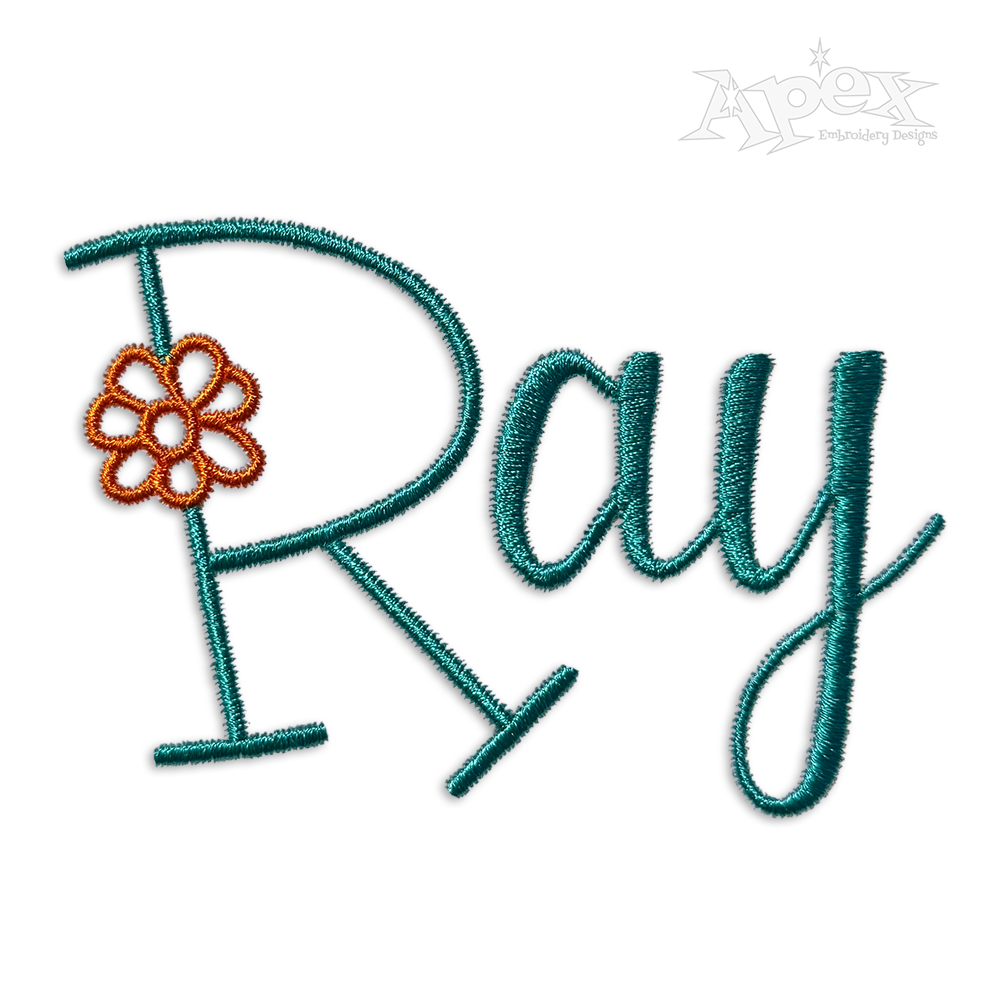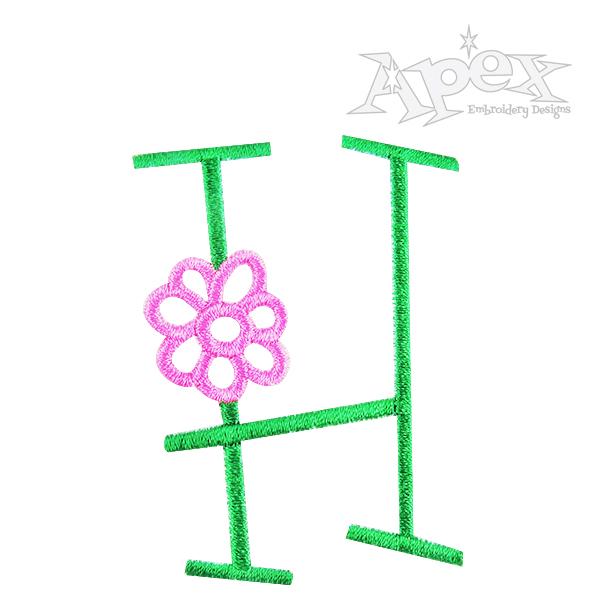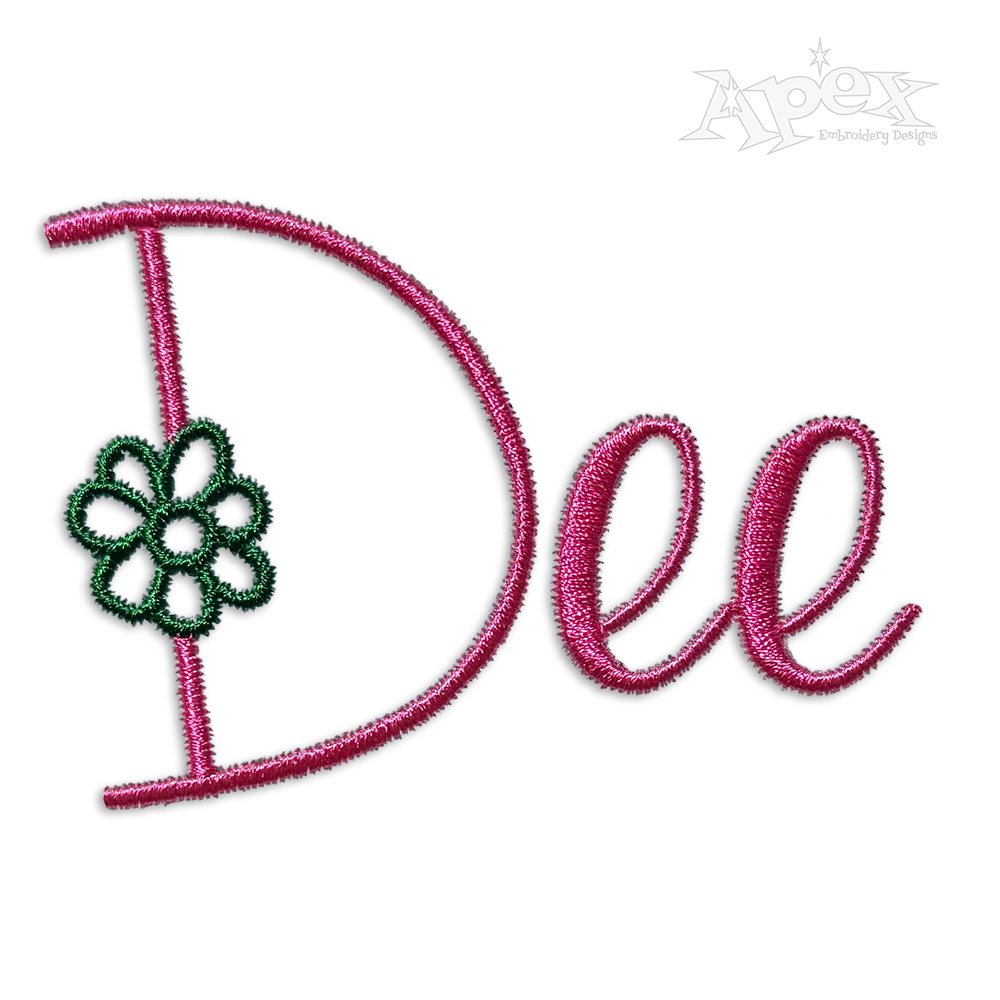
Daisy Flower Embroidery Font
Capturing the carefree beauty of a sunlit spring meadow, the Daisy Flower Embroidery Font transforms classic lettering into an enchanting botanical keepsake. Each letterform is thoughtfully accented with crisp, blooming daisy blossoms and delicate garden greenery, designed to evoke the warmth of fresh mornings and open fields. Created for discerning stitchers who appreciate both structure and softness, this font brings a joyful, handcrafted dimension to personalized gifting, infusing every monogram with an air of pastoral elegance.
Daisy Flower Embroidery Font Craft & Letterform Details
Digitizing botanical typography requires a delicate balance between structural legibility and organic charm. Each petal is mapped with radiating satin stitch angles that capture the natural sheen of embroidery thread, mimicking the gentle curve of real flower blossoms in sunlight. Underneath, a meticulously planned foundation of contour underlay stabilizes the letter stems, preventing puckering while allowing the delicate flower centers to emerge with rich, tactile dimension. The transition points where petals weave across the main character strokes are engineered with specialized push-and-pull compensation, ensuring crisp lines, sharp edge definition, and effortless thread coverage across fine linens, cottons, and heirloom fabrics alike.